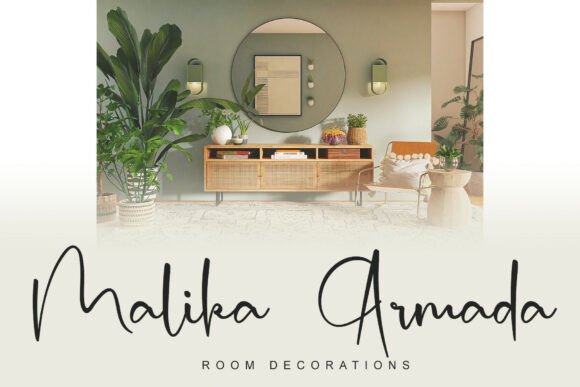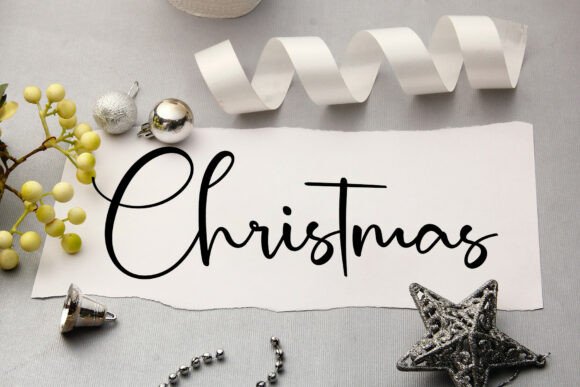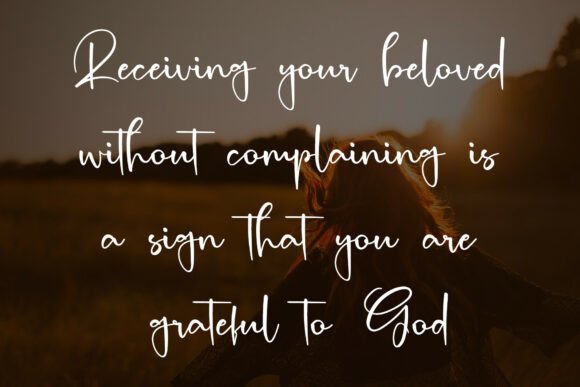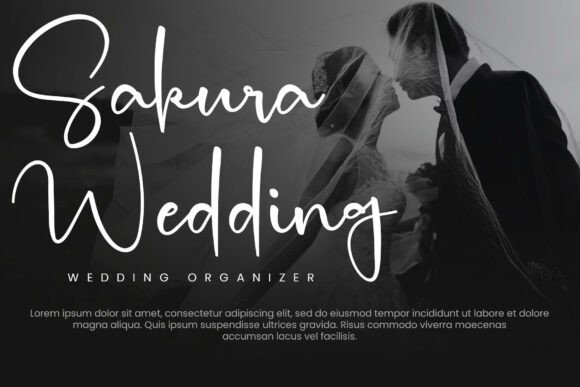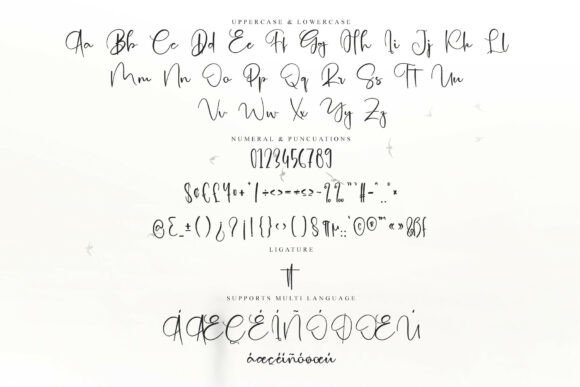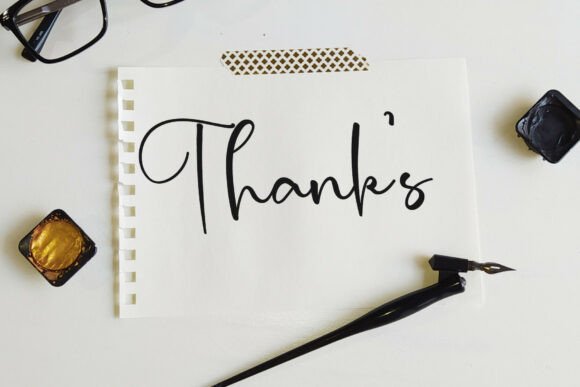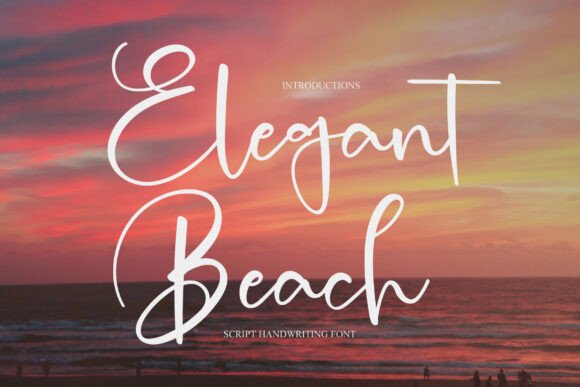
Elegant Beach Font: A Sweet and Cursive Handwritten Font for Your Design Needs
Are you looking for a font that exudes elegance, joy, and romance? Look no further than the Elegant Beach font! This beautiful, cursive handwritten font is perfect for designers and crafters who want to add a touch of sophistication and whimsy to their projects. In this article, we’ll dive into the features and benefits of the Elegant Beach font, and explore how you can use it to elevate your designs.
What is Elegant Beach Font?
Elegant Beach is a sweet and cursive handwritten font that is designed to bring a sense of joy and romance to your designs. With its gentle, flowing lines and elegant curves, this font is perfect for creating beautiful and eye-catching designs. Whether you’re working on a branding project, a wedding invitation, or a fashion lookbook, Elegant Beach font is sure to impress.
Key Features of Elegant Beach Font
- Sweet and Cursive Handwritten Style: Elegant Beach font features a beautiful, cursive handwritten style that is both elegant and playful.
- Versatile and Flexible: This font is perfect for a variety of design projects, from branding and logos to wedding invitations and greeting cards.
- Easy to Read and Understand: Despite its elegant and cursive style, Elegant Beach font is easy to read and understand, making it perfect for body text and headings.
- Scalable and Editable: This font is highly scalable and editable, allowing you to adjust its size, color, and style to fit your design needs.
Benefits of Using Elegant Beach Font
So why choose Elegant Beach font for your design projects? Here are just a few benefits of using this beautiful font:
- Adds a Touch of Elegance and Sophistication: Elegant Beach font adds a touch of elegance and sophistication to your designs, making them perfect for high-end branding and marketing projects.
- Creates a Joyful and Romantic Atmosphere: The sweet and cursive style of Elegant Beach font creates a joyful and romantic atmosphere, making it perfect for wedding invitations, greeting cards, and other special occasions.
- Perfect for Branding and Marketing Projects: Elegant Beach font is perfect for branding and marketing projects, as it adds a touch of professionalism and sophistication to your designs.
- Great for Fashion and Beauty Brands: This font is also great for fashion and beauty brands, as it adds a touch of glamour and elegance to their designs.
How to Use Elegant Beach Font in Your Designs
So how can you use Elegant Beach font in your designs? Here are a few ideas to get you started:
- Branding and Logos: Use Elegant Beach font to create beautiful and elegant logos and branding materials.
- Wedding Invitations and Stationery: This font is perfect for wedding invitations, greeting cards, and other special occasion stationery.
- Fashion Lookbooks and Marketing Materials: Use Elegant Beach font to add a touch of glamour and elegance to your fashion lookbooks and marketing materials.
- Greeting Cards and Gift Tags: This font is also great for creating beautiful and elegant greeting cards and gift tags.
Tips and Tricks for Working with Elegant Beach Font
Here are a few tips and tricks for working with Elegant Beach font:
- Pair it with a Sans-Serif Font: Pair Elegant Beach font with a sans-serif font to create a beautiful and contrasting design.
- Use it for Headings and Titles: Use Elegant Beach font for headings and titles to add a touch of elegance and sophistication to your designs.
- Experiment with Different Colors and Sizes: Experiment with different colors and sizes to find the perfect combination for your design.
In conclusion, Elegant Beach font is a beautiful and elegant cursive handwritten font that is perfect for designers and crafters who want to add a touch of sophistication and whimsy to their projects. With its sweet and cursive style, versatile and flexible design, and easy-to-read and understand format, Elegant Beach font is perfect for a variety of design projects. Whether you’re working on a branding project, a wedding invitation, or a fashion lookbook, Elegant Beach font is sure to impress.